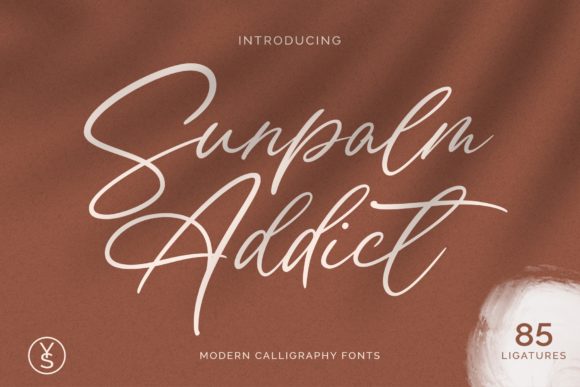
Welcome to the world of Sunpalm Addict Font, a mesmerizing realm where calligraphy meets art. This script font is not just a collection of letters; it's a symphony of flowing lines and elegant curves, designed to captivate and enchant. Crafted by the skilled hands of YdhraStudio, Sunpalm Addict is a testament to the power of handwritten artistry, transforming your words into visual masterpieces.
With its playful rounded characters, Sunpalm Addict is like a warm embrace, inviting you to explore the realm of creativity. Each letter is a work of art, whispering tales of love, laughter, and dreams yet to be realized. Whether you're a seasoned designer or just starting your creative journey, Sunpalm Addict is your perfect companion, guiding you towards stunning creations that will leave a lasting impression.
Immerse yourself in the magic of Sunpalm Addict and let your imagination soar. Create wedding invitations that exude elegance and romance, stationary art that reflects your unique personality, social media posts that pop with vibrant energy, and greeting cards that warm the hearts of your loved ones. Let Sunpalm Addict be your muse, inspiring you to craft designs that capture the essence of joy, love, and creativity.
Sunpalm Addict is more than just a font; it's an experience. It's a journey into the depths of your artistic soul, where inspiration flows freely and ideas come to life. Whether you're designing for web or print, Sunpalm Addict will elevate your creations to new heights, leaving your audience spellbound.
So why settle for ordinary fonts when you can unleash the extraordinary? Embrace the beauty of Sunpalm Addict today and embark on a creative adventure that will leave you breathless. Let your designs bloom with grace and charm, and let the world witness the magic that unfolds when art and technology intertwine.